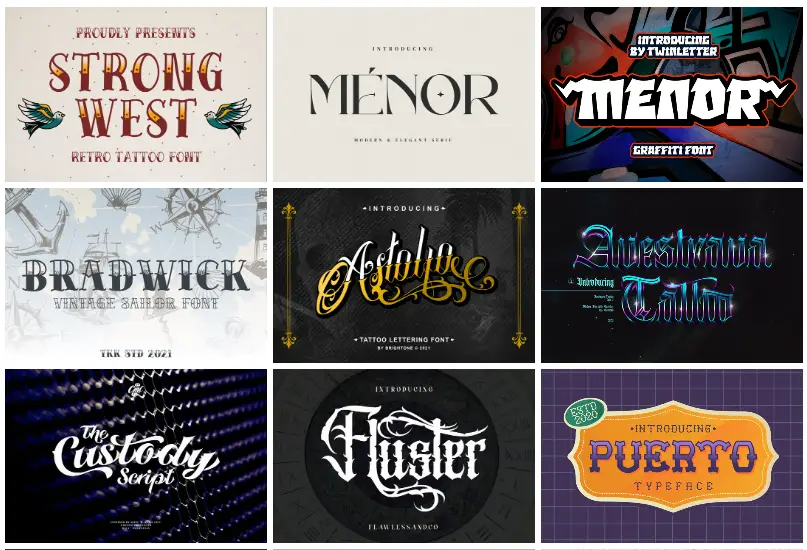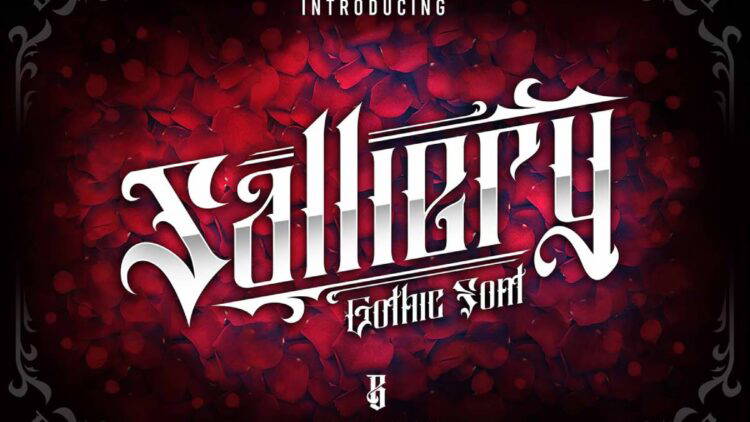
Best tattoo fonts for men for your designs that will give them a nice clear and powerful look? Well, you have come to the right place!
Tattoo fonts can never go out of fashion as to them being a trend. It’s a form of art in itself that adds a unique touch to everything, from writing on skin to applications that include graphics. You can always find a font that perfectly fits your need whether you are looking for something rugged and bold or something delicate and intricate. These fonts are able to provide a layer of style that makes them ideal for tattoos, branding, posters, social media visuals, and other mediums that require a certain touch of uniqueness.
In this article and review, we have compiled the best body art fonts that would be suitable for masculine designs so that your time is not wasted and your designs are enhanced. There is more, Lets check the best fonts and see what they can do for your next project! It’s going to be epic!
Where Can You Use Tattoo Fonts for Men?
1.Tattoo Designs: There is no beater of blending style and personality with tattooing and these fonts come in handy. People who are bored of the classic tattooing styles can use ancient Gothic fonts to create modern body art.
2. Branding and Logos: Businesses in male-dominated spheres and niches such as barbershops and tattoo parlors or male sportswear brands should try out tattoo fonts in logo design. Businesses targeting men will find it easier to appeal to the audience with a bold logo, so masculine fonts will do the job.
3.Posters and Flyers: There’s no such thing as an event without promotion, so flyers and posters must contain a lot of graphic material. There are places in such promotional materials where prominent fonts will be appropriately needed: on posters for bold events and significant demonstrations.
4. Clothing and Apparel Design: Using tattoo fonts does not seem necessary when designing simple tshirts and caps. Various niche clothing lines will benefit from ‘typical streetwear’ styles.
5. Social Media Content: Social media posts don’t always deserve a tattoo font, however they warm up the activity on the profile. Associated with sliced and cutting undertones, they can suit announcing quotes and thematic imagery.
6.Book Covers and Album Art: Due to the aggressive nature of tattoos, it is enough for them to symbolize themes of revolt and will. Strong personalities will procure the audience’s love, so it is safe to adorn these with tattoo fonts including the themes mentioned above.
7. Counterfeit Art Cruz: Wantom flooring tiles to wall decoration, creative pieces such as these fonts have a unique touch, which is artistic as well as manly.
If either you are doing tattoos as a hobby or as a profession, tattoo fonts are never in scarcity in terms of style and appeal.
9+ Best Tattoo Fonts for Men: Style and Strength in Every Letter
1. Meltvan – Tattoo Font
Meltvan is almost a script infused with tattoo elements that is both a lively and beautiful font to enhance the artistic ventures. The font has capital latters, numerals and accompanying punctuations and accented letters only adding to the compositional features and the ability to look animated although professional.
Find them suitable for tattoo studio logos, cut-out writing, t-shirt patterns or other tattoo representations Meltvan has a great appeal as a tattoo font which is both eye catching as well as contemporary making it difficult to go unnoticed. Also, for anyone involved in creating his or her own design or launch a marketing campaign for a brand, this font represents tattoo works through slick and uncomplicated shapes.
Meltvan should become the primary font for all who wish to use font with script tattoo oriented designs a lot. Wallpapers or webs, everywhere, every detail is good and so unique, that every single designer should have it in his or her folder to make a statement.
2. MORGAN TATTOO FONT